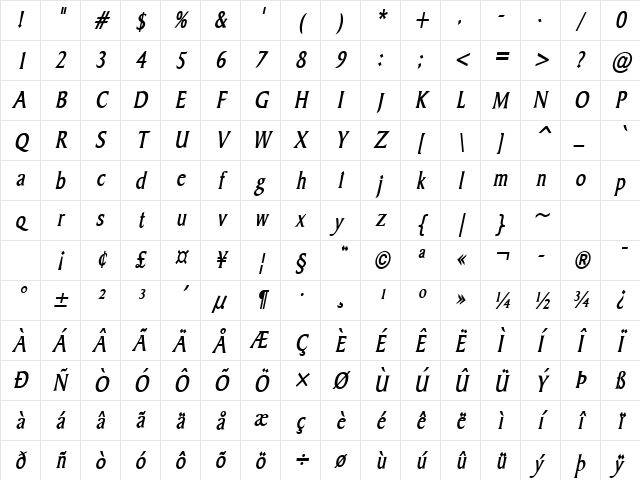
Barrett-Condensed Bold Italic
Barrett-Condensed Family
Barrett-Condensed Bold Italic
Complete Barrett-Condensed Bold Italic glyph index. Displaying only characters natively supported by Barrett-Condensed Bold Italic font.
Design Context for Barrett-Condensed
Barrett-Condensed is a composed and adaptable typeface that performs quietly and consistently across a wide range of design contexts. The slanted form adds forward momentum and visual energy. Its bold stroke weight gives it real presence on the page. Its narrow stance lets it pack a punch even in space-constrained designs.
Pro Tip: Use Barrett-Condensed for emphasis, pull quotes, and subheadings where its slanted energy can add rhythm to the layout.